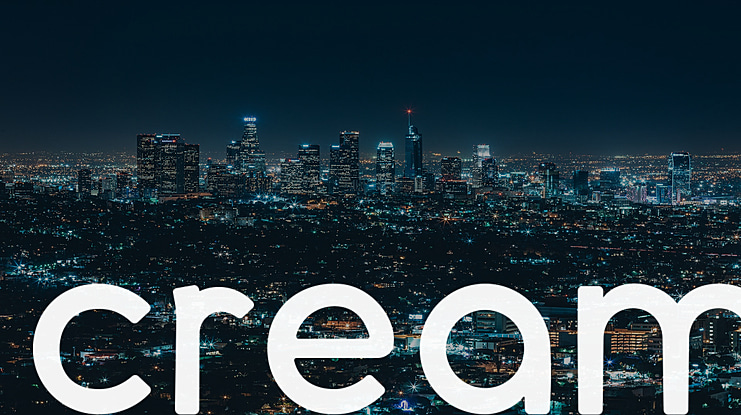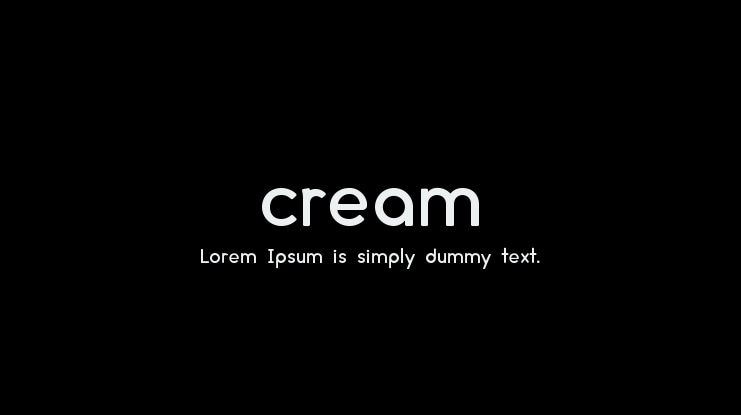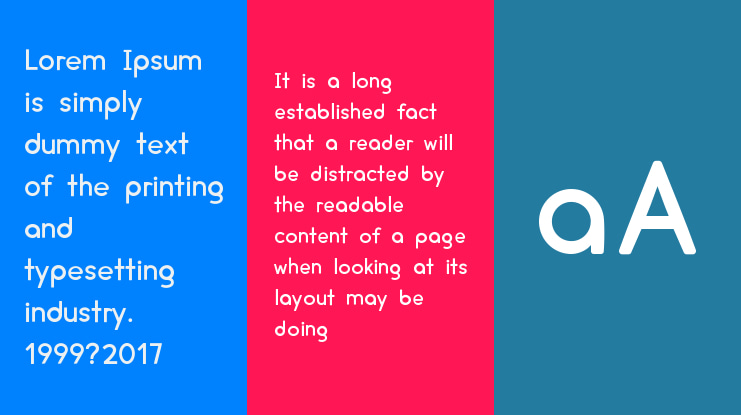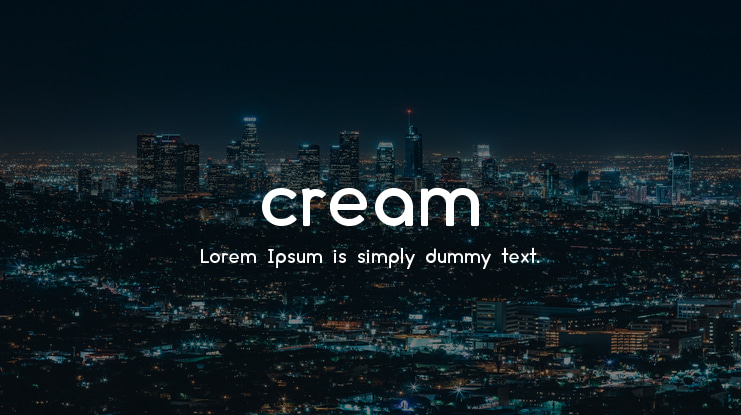
cream Font
Christoph Dörre
Cream is suitable for continuous text through it’s beautifully modulated letters and balanced stroke width. With more than 560 glyphs, you can use cream in almost every language on the basis of the latin alphabet. The full version also has optimized ligatures for fb, fk and similar ones. You can use the three extra styles for a unique eyecatcher.This font is free for personal use only. If you want to use it commercially, please buy a standard license on my website: www.shapedfonts.com/creamThe Full version including numbers, symbols and language support is included with a license only.Important: If you are a company of more than 10 people you need to buy an extended license. To do this, please contact me on my website or via